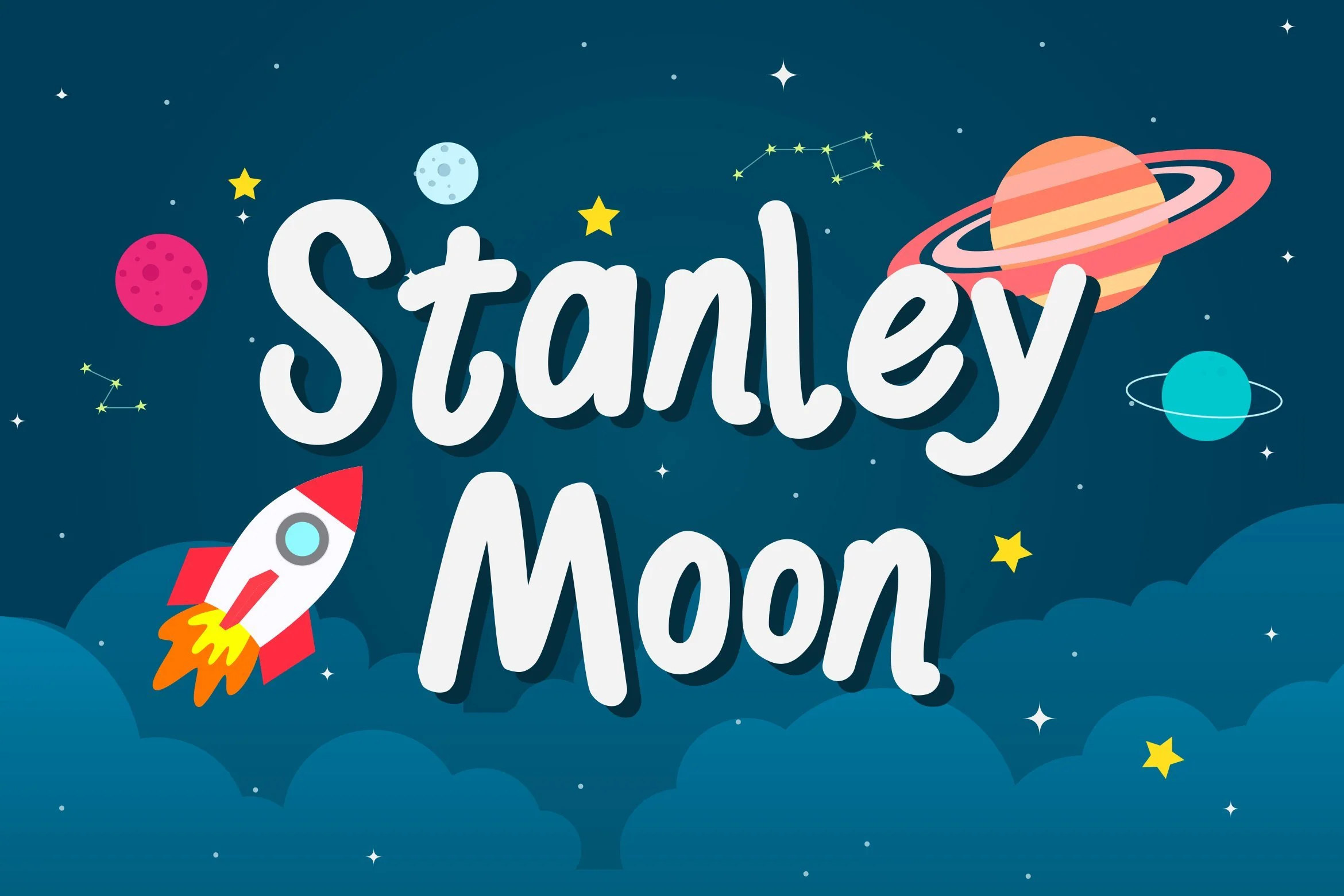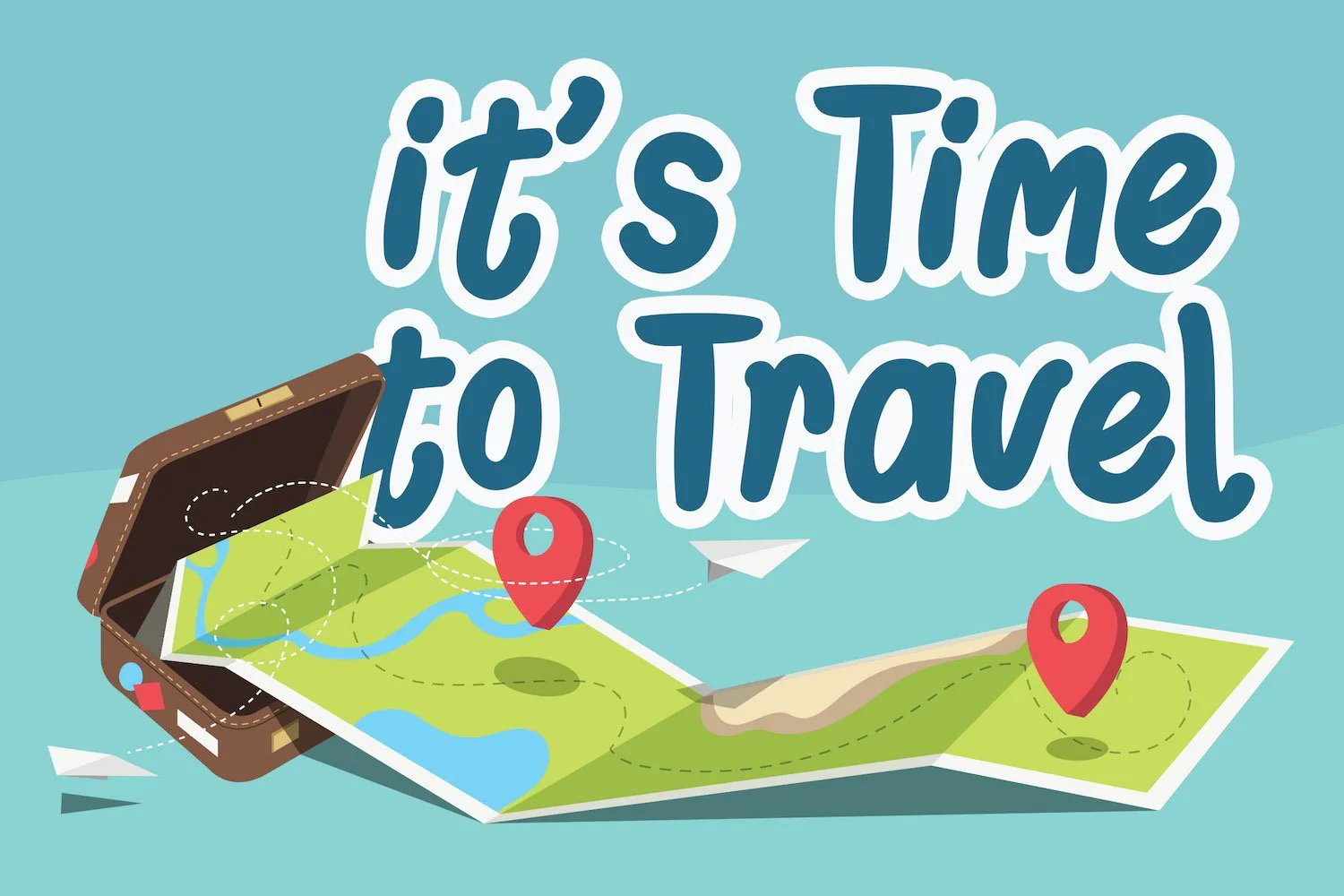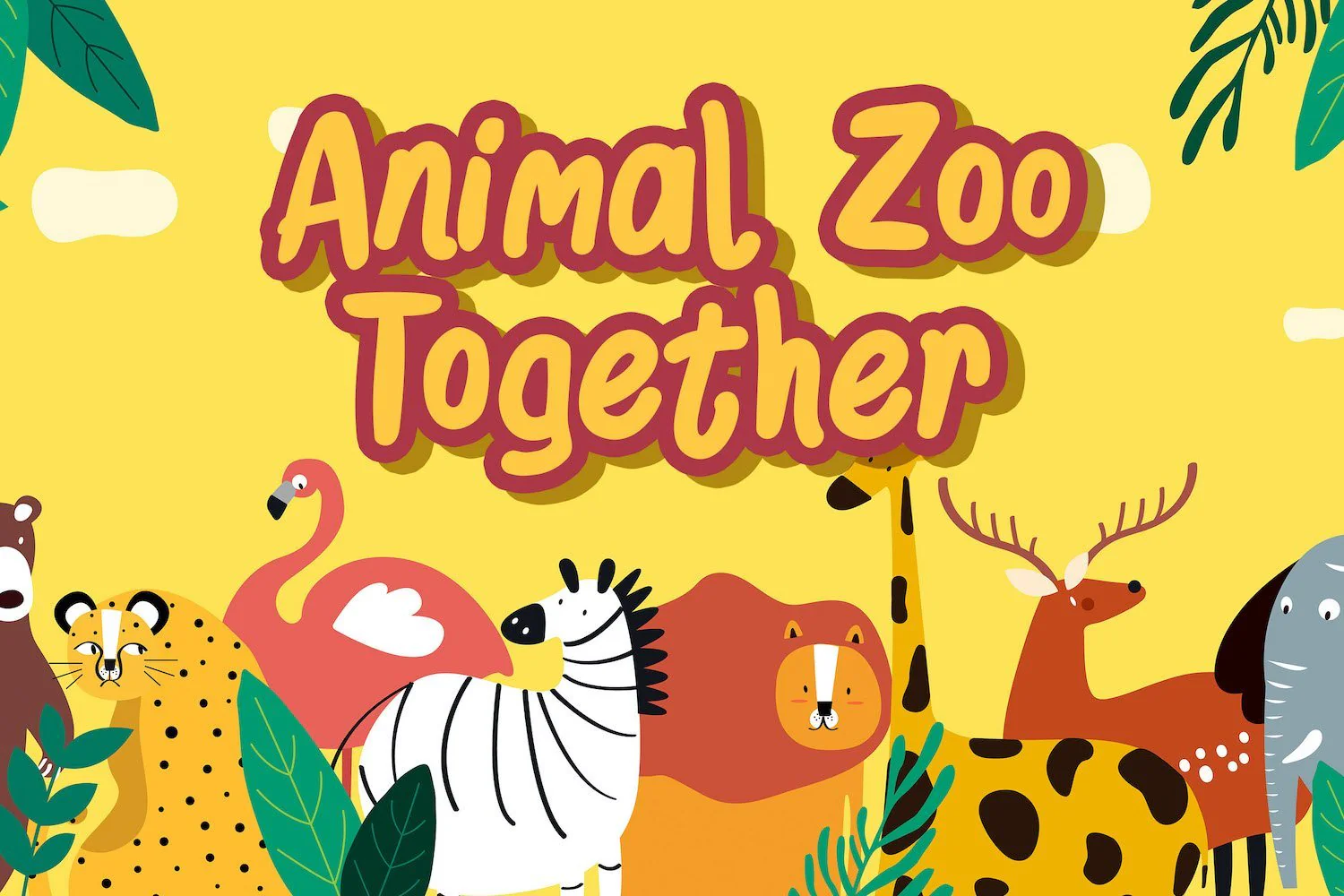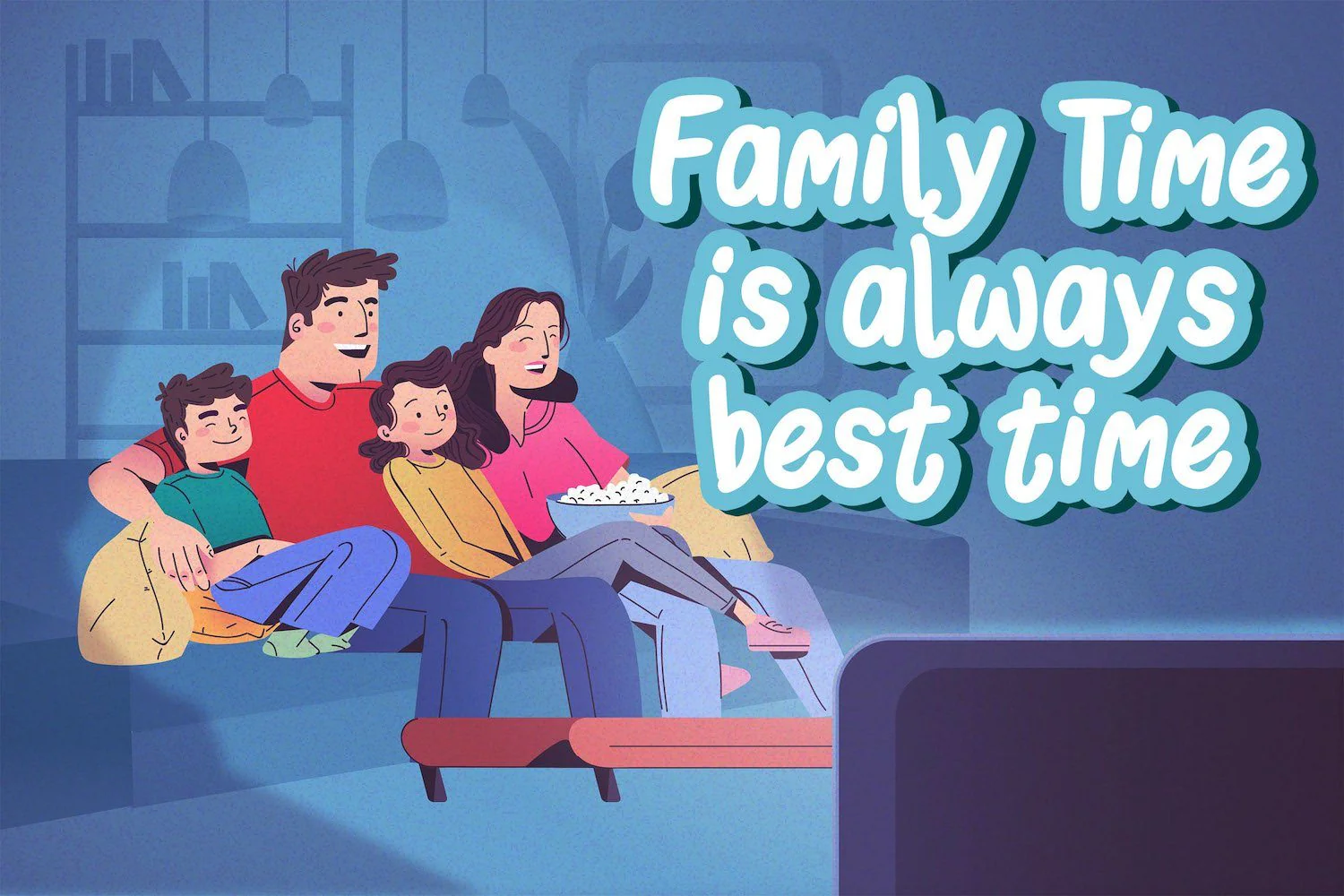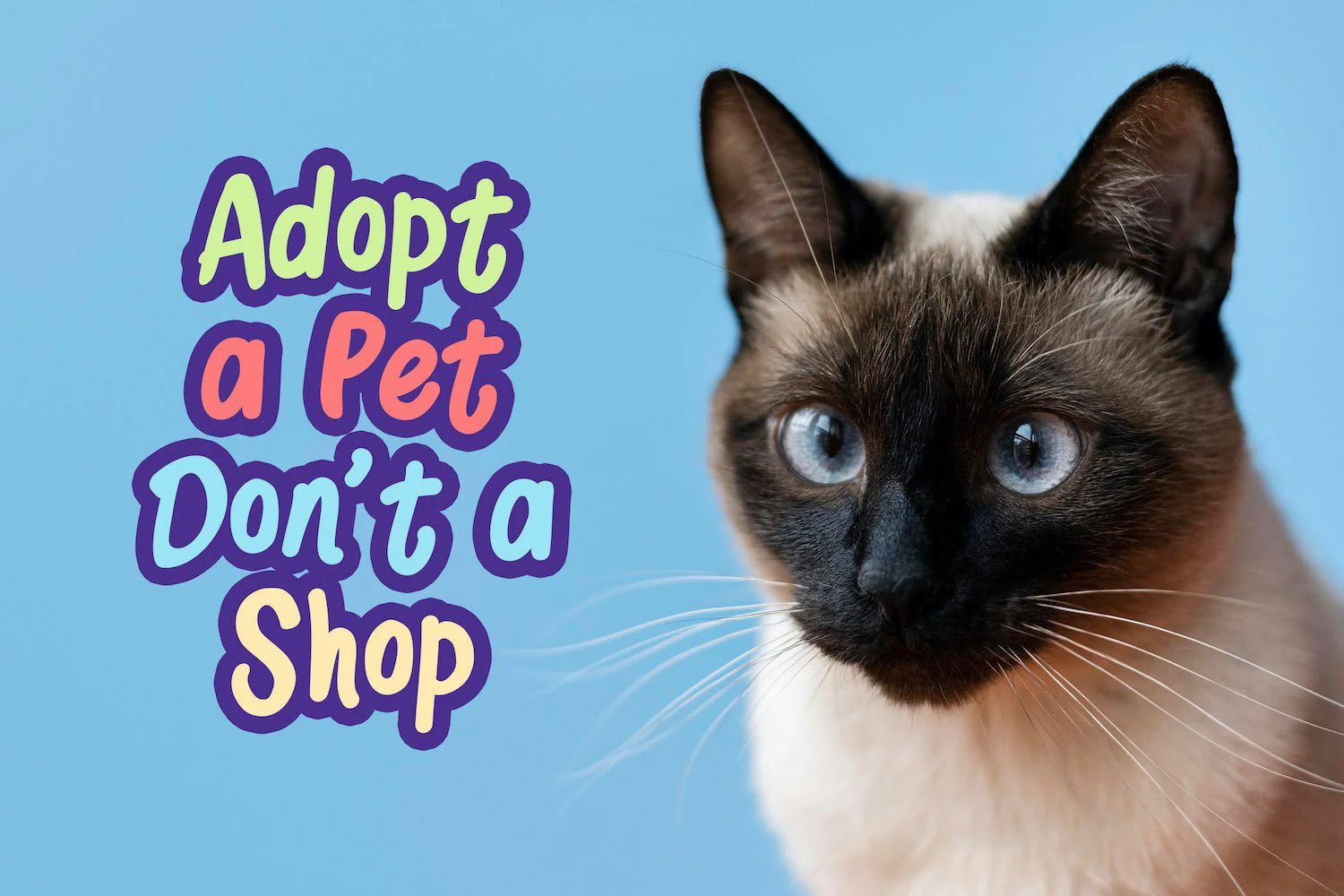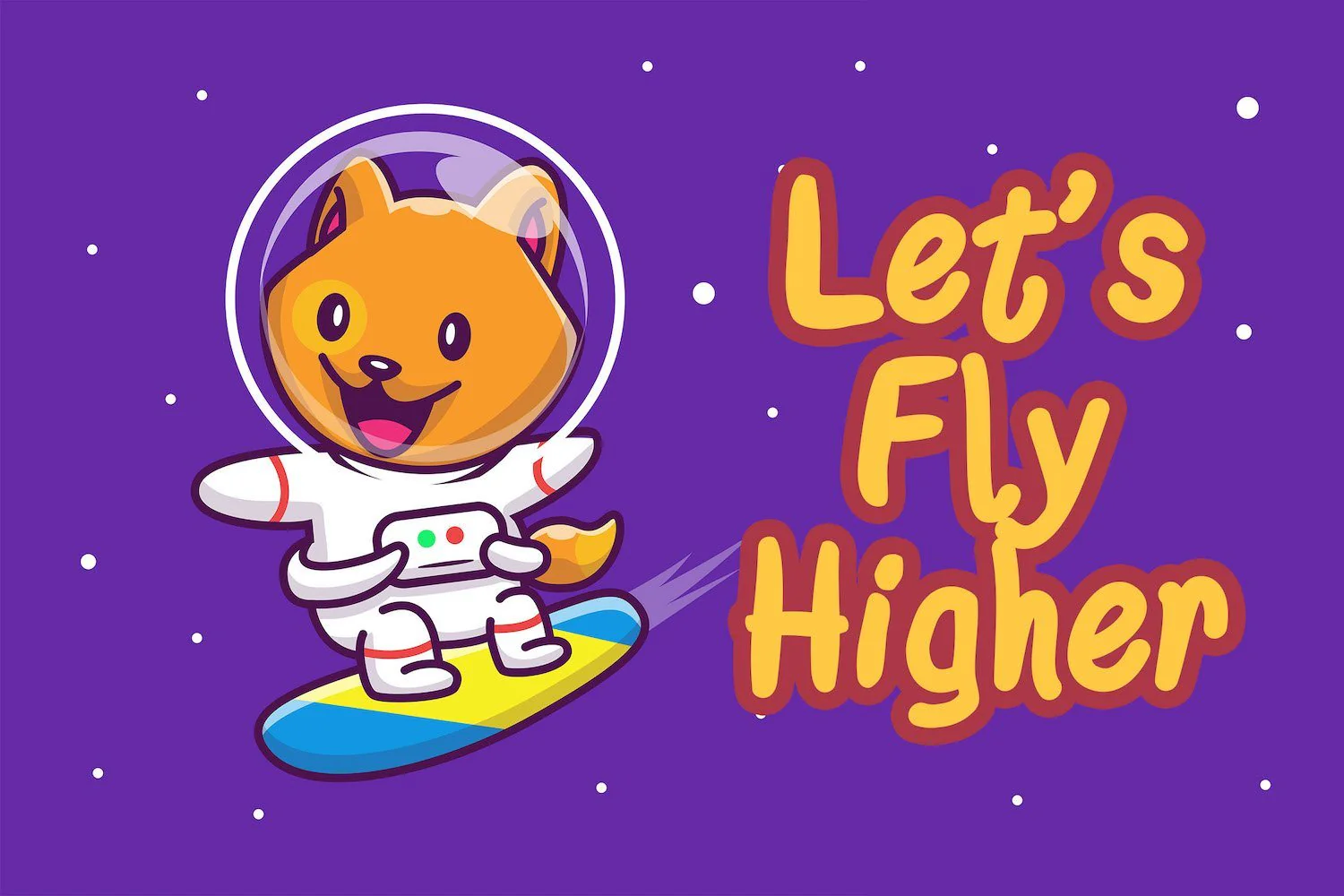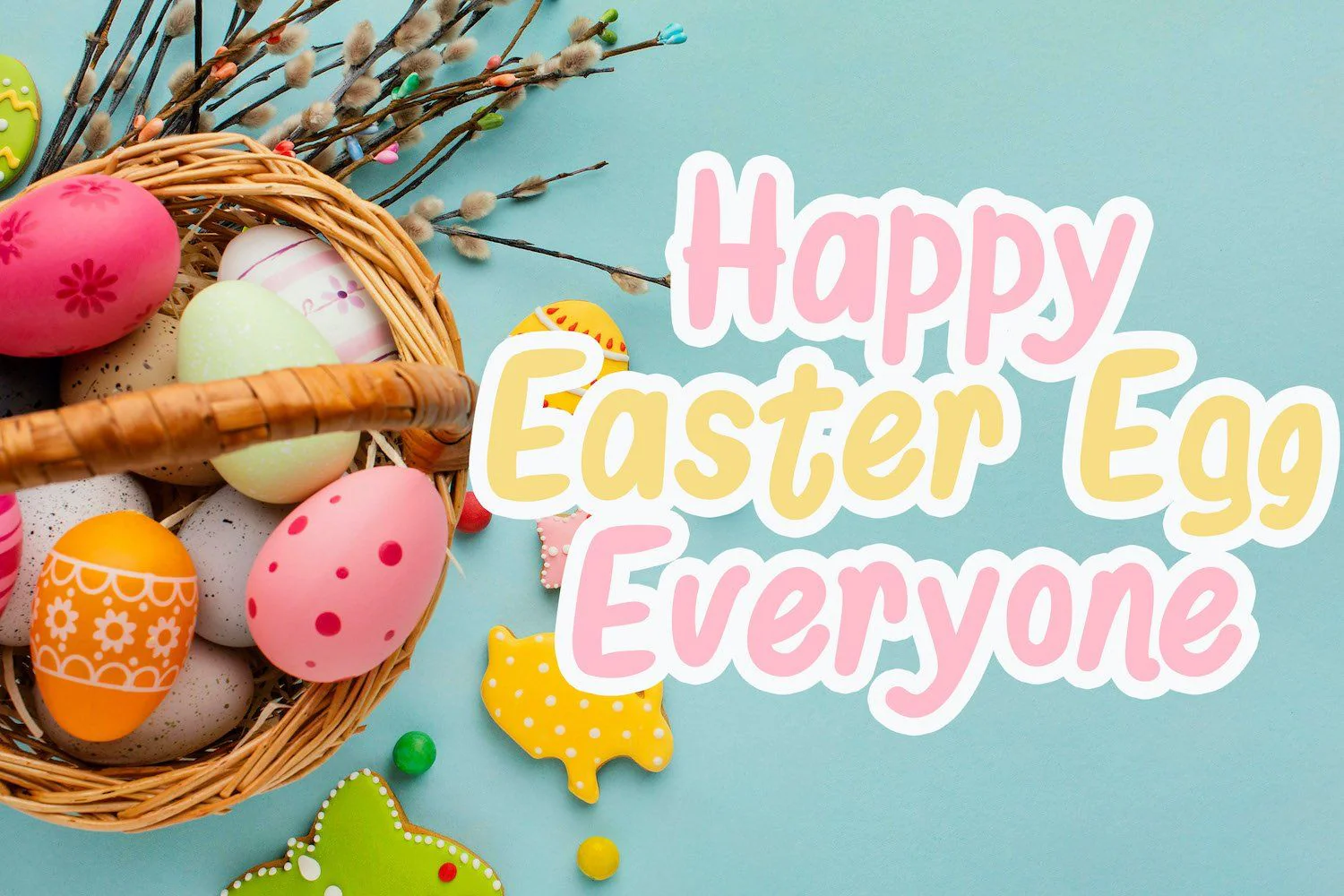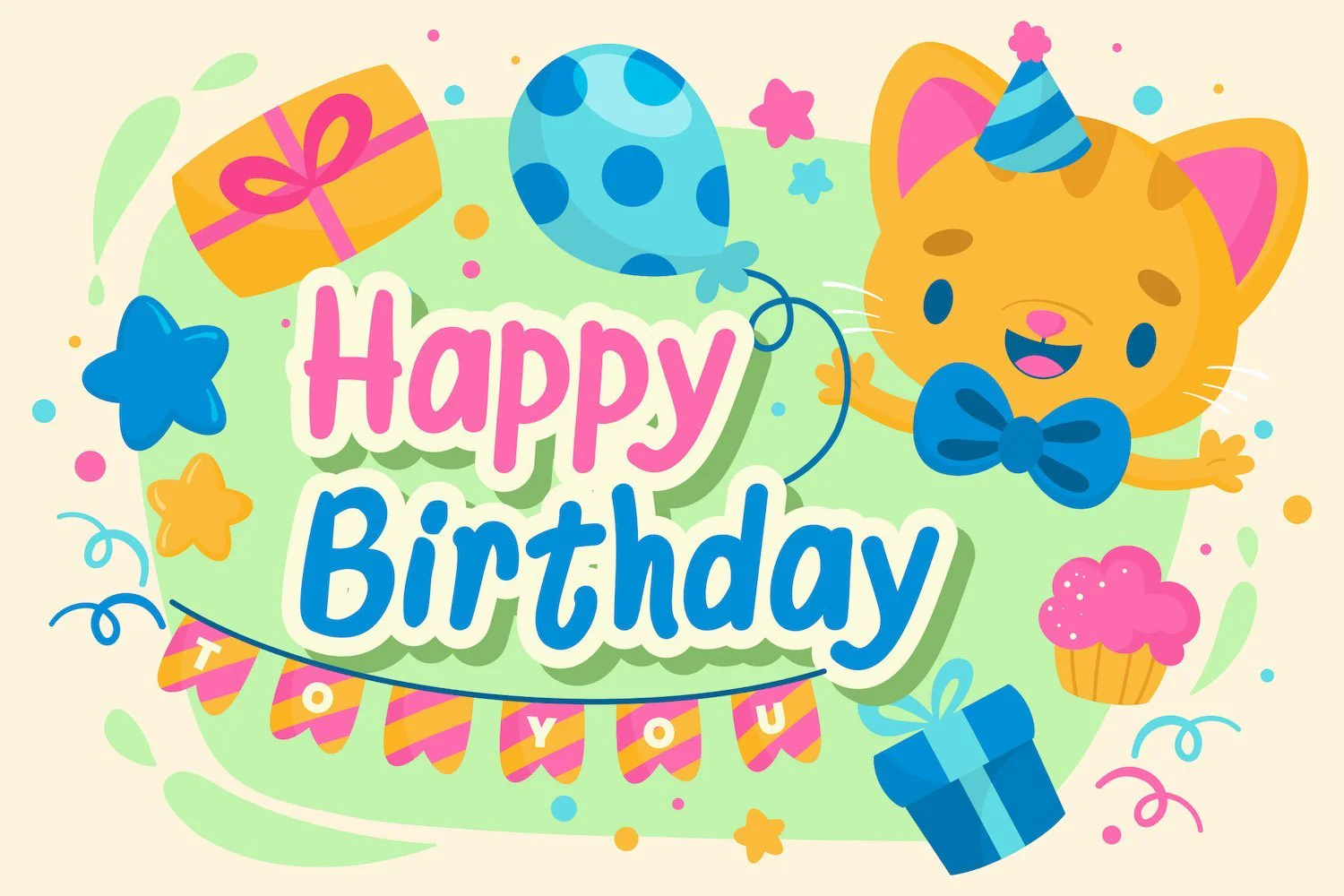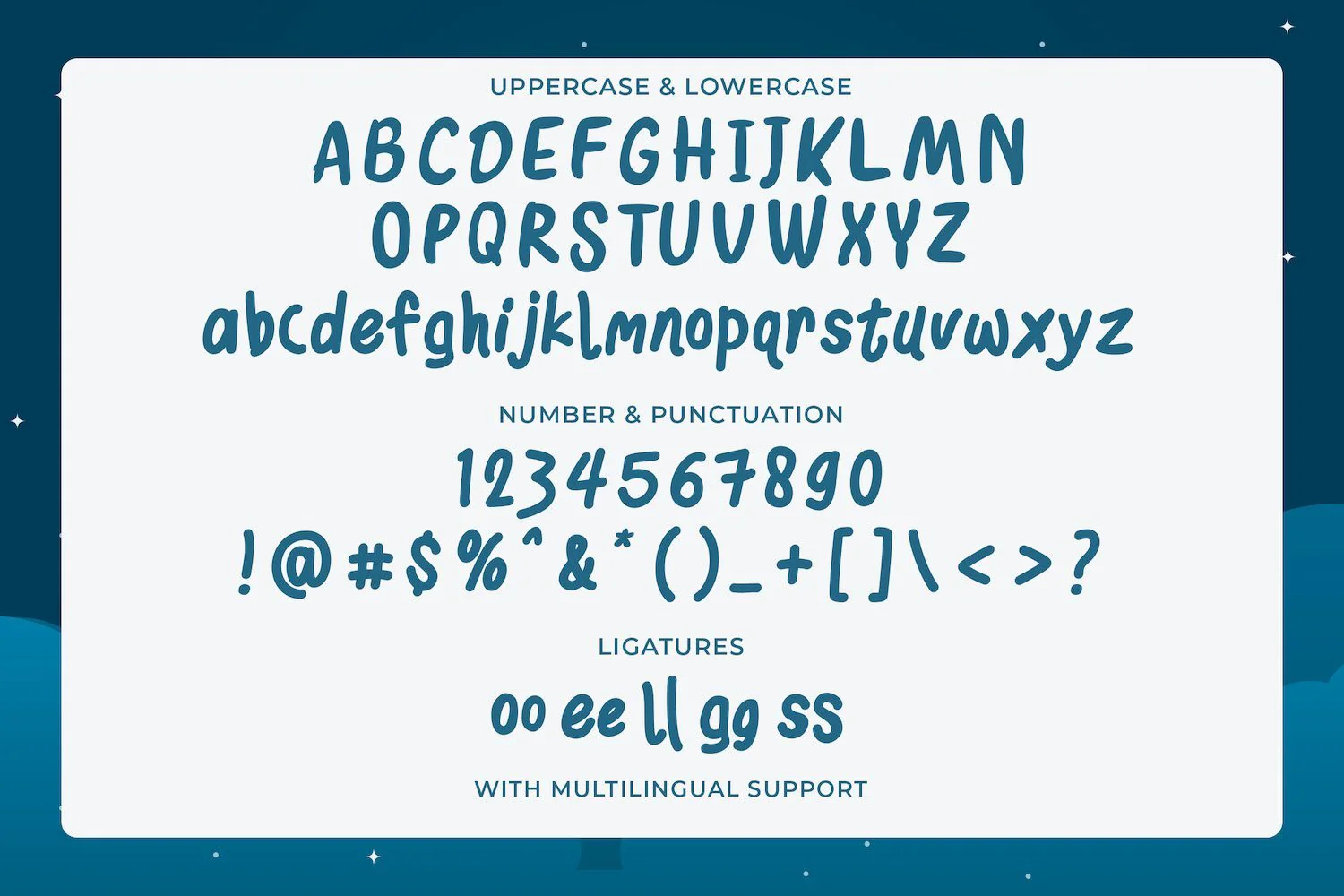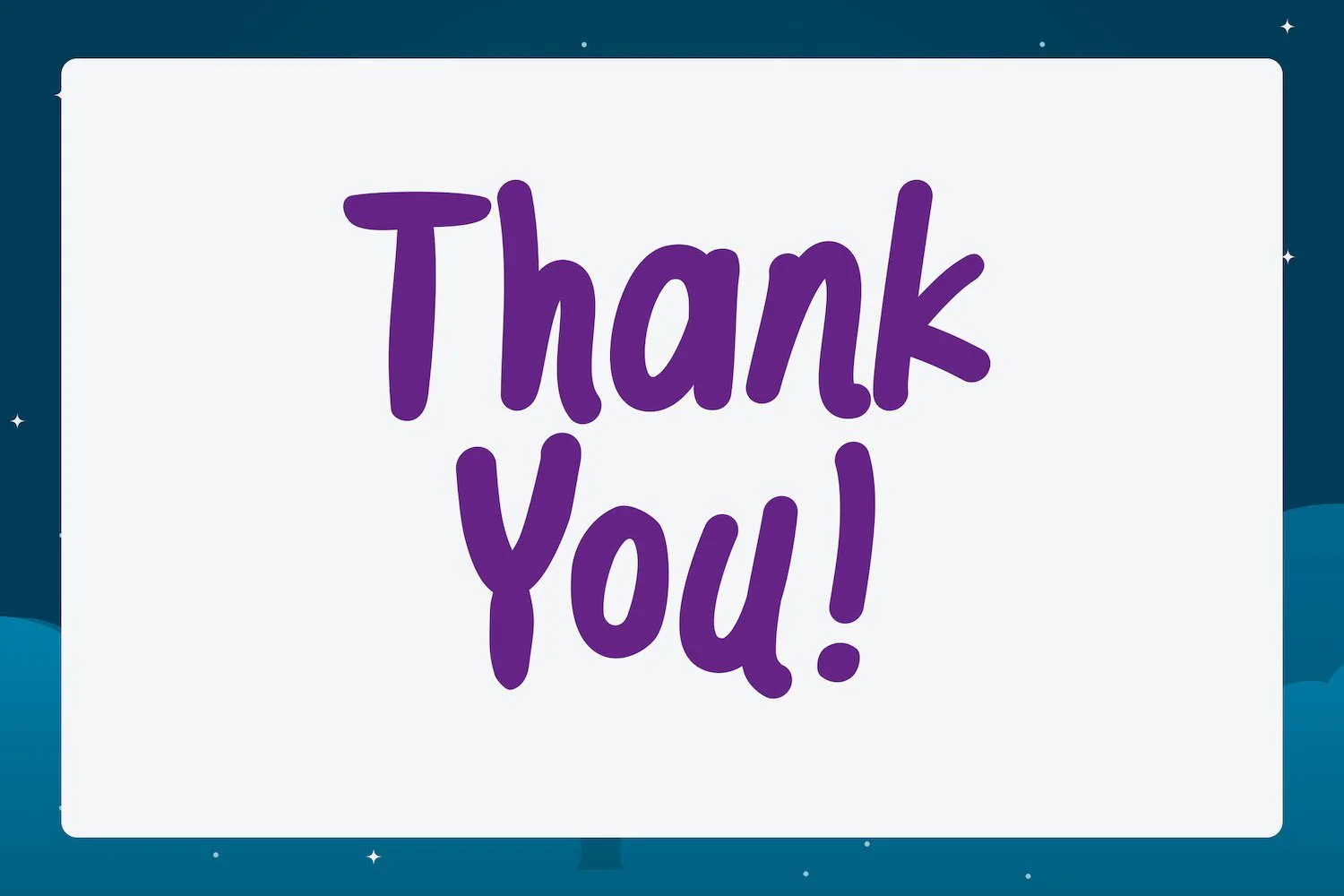
Stanley Moon - Playful Display Font
Introducing Stanley Moon - Playful Display Font
Stanley Moon is a fun display font. Playful and fresh, this font will be a hit for each of your children or school projects!
Introducing Stanley Moon - Playful Display Font
Stanley Moon is a fun display font. Playful and fresh, this font will be a hit for each of your children or school projects!